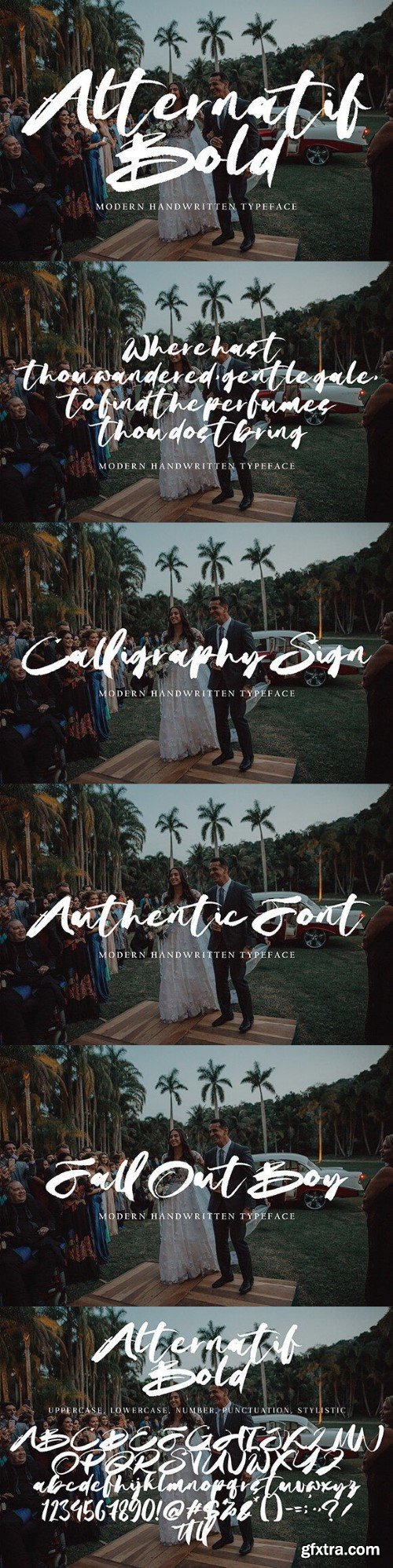
替代粗体字体
Alternatif Bold Font
Alternatif Bold with new style, this font will perfect for many different project ex: quotes, logo, blog header, poster, banding, letter, invitation, stationery, etc…